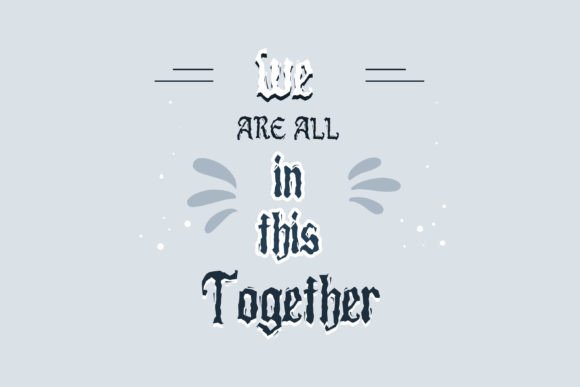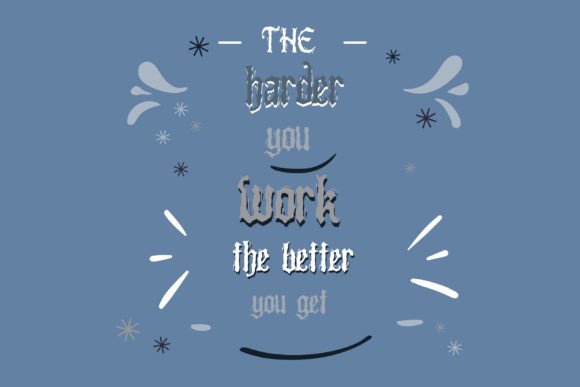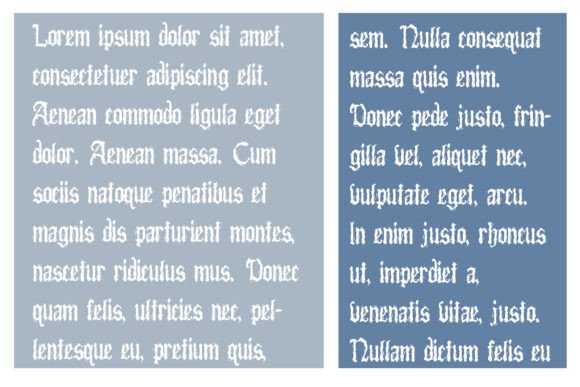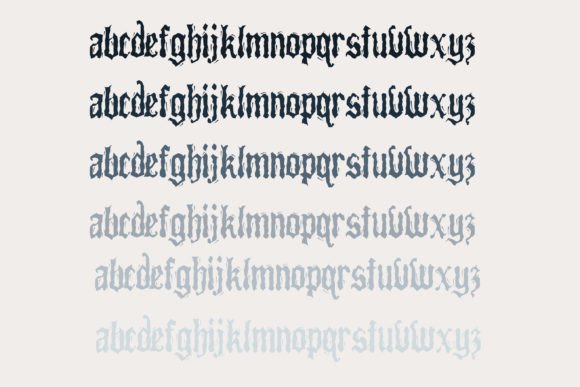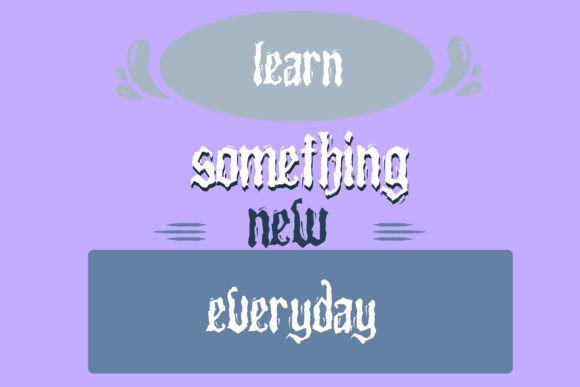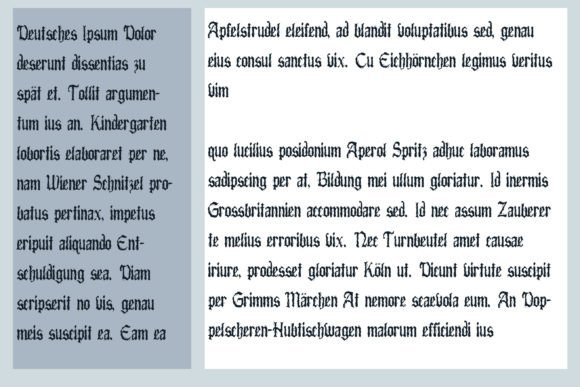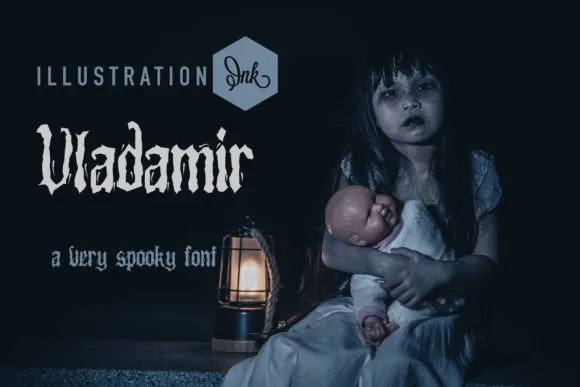
Vladamir Font
About Vladamir Font
**Introducing Vladamir: A Spooky and Dramatic Handcrafted Script Font**
The “Vladamir” handcrafted script font is designed to add a spooky, dramatic, and mysterious touch to your creative projects. With its unique blend of formal elegance and horror-inspired vibes, this font is versatile and well-suited for a wide range of applications where you want to evoke a sense of drama, intrigue, or eeriness. Here are some creative ways to use “Vladamir” in your designs:
1. **Horror Movie Titles:** Create captivating and spine-tingling titles and credits for horror films and supernatural thrillers. “Vladamir” sets the stage for a chilling cinematic experience.
2. **Book Covers:** Craft book covers for suspenseful and mysterious novels, gothic tales, or dark fantasy stories. “Vladamir” adds an element of intrigue and foreboding.
3. **Halloween Decorations:** Design spooky Halloween decorations, banners, and party materials with a dramatic flair. “Vladamir” enhances the sinister atmosphere of your haunted house.
4. **Mysterious Invitations:** Design invitations for mystery-themed parties, escape room events, or masquerade balls. “Vladamir” conveys an air of enigma and sophistication.
5. **Gothic Art Prints:** Create gothic-style art prints and posters with cryptic messages or dark themes. “Vladamir” complements the eerie and otherworldly aesthetic.
6. **Metal Band Logos:** Develop logos and branding materials for heavy metal bands with a dark and dramatic image. “Vladamir” aligns with the intensity of the music.
7. **Fantasy Novel Typography:** Use “Vladamir” to craft typography for fantasy novel titles or chapters that feature mysterious and ominous elements.
8. **Tattoo Designs:** Incorporate “Vladamir” into tattoo designs that showcase dramatic and haunting imagery, such as skulls, gothic symbols, or occult motifs.
9. **Podcast Cover Art:** Enhance cover art for mystery, true crime, or suspense-themed podcasts. “Vladamir” captures the essence of intrigue and suspense.
10. **Gaming Graphics:** Create in-game text, logos, and promotional visuals for video games with dark and mysterious storylines. “Vladamir” heightens the suspense.
11. **Alternative Fashion Branding:** Use “Vladamir” for branding and promotional materials for alternative fashion brands that embrace dramatic and mysterious aesthetics.
12. **Dark Poetry and Literature:** Design covers and layouts for dark poetry collections, literary works, or anthologies that explore themes of darkness and mystery.
13. **Art Exhibitions:** Promote art exhibitions or gallery openings with captivating visuals that feature “Vladamir” typography, adding an element of intrigue.
14. **Mysterious Theater Productions:** Create posters, flyers, and programs for mystery or thriller theater productions. “Vladamir” adds a touch of suspense to the designs.
15. **Haunted Attractions:** Advertise haunted houses, escape rooms, and haunted attractions with promotional materials that convey a sense of drama and foreboding.
“Vladamir” is a font that effortlessly blends sophistication with a touch of the macabre. Its handcrafted script style and formal yet ominous aesthetic make it a versatile choice for conveying dramatic and mysterious atmospheres. Whether you’re working on projects for entertainment, events, or artistic expression, “Vladamir” is ready to infuse your designs with a captivating sense of foreboding and intrigue.